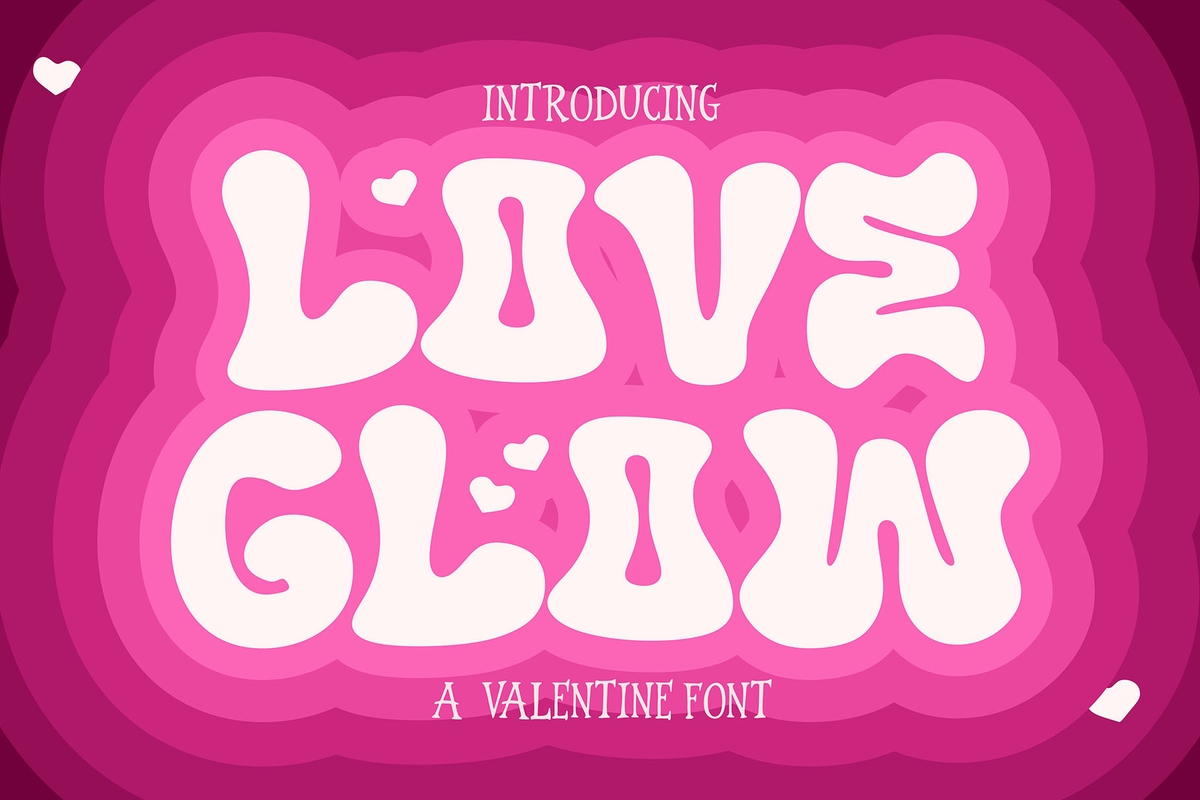
Love Glow
Love Glow is a cute and retro-inspired display typeface designed to express warmth, joy, and affection through soft letterforms and playful shapes. Inspired by vintage love posters, Valentine cards, and nostalgic pop aesthetics, this typeface brings a cheerful romantic mood that instantly connects with viewers. Its rounded curves, bubbly proportions, and glowing personality make it perfect for projects that need a sweet, friendly, and eye-catching typographic voice. This typeface is carefully c